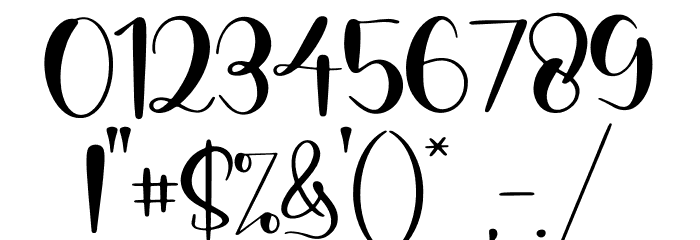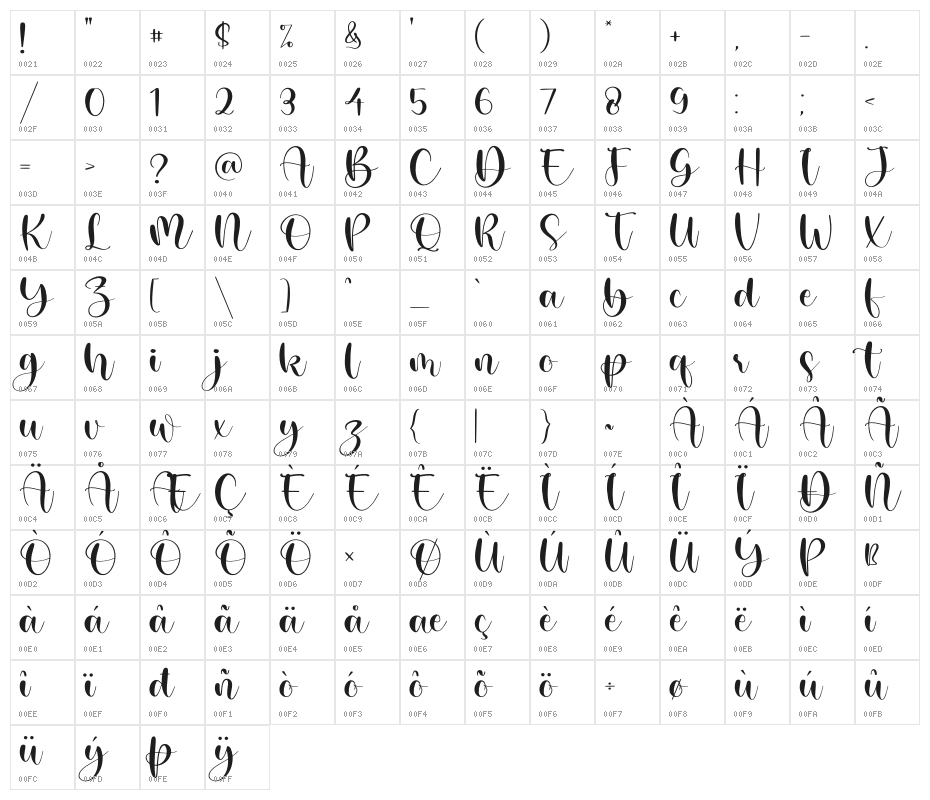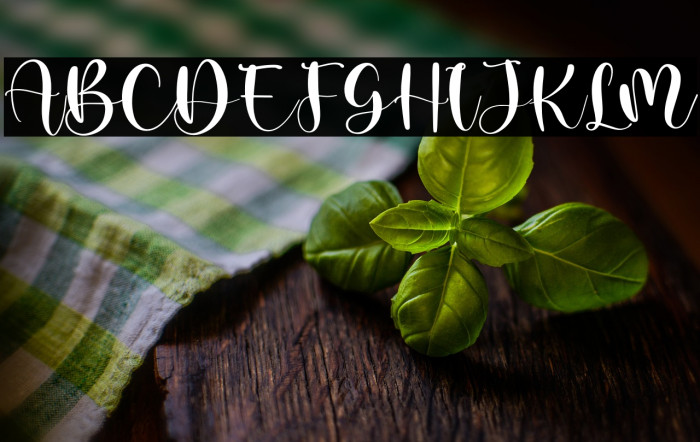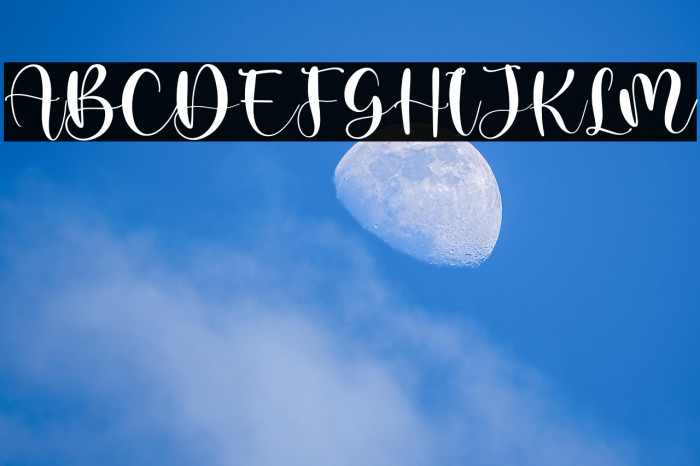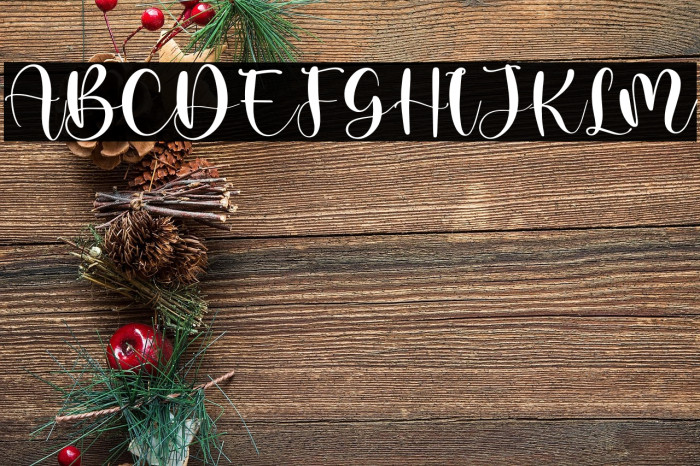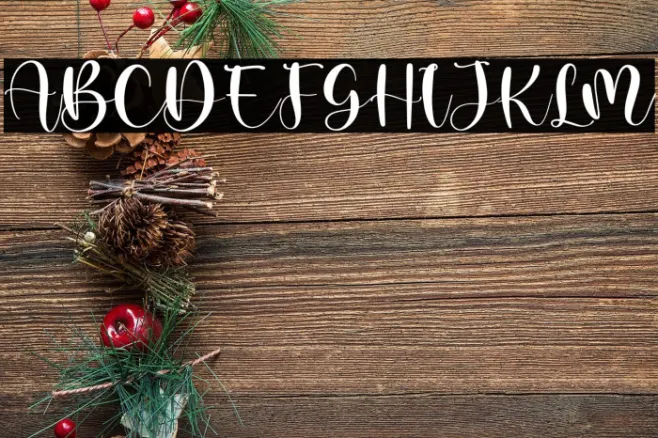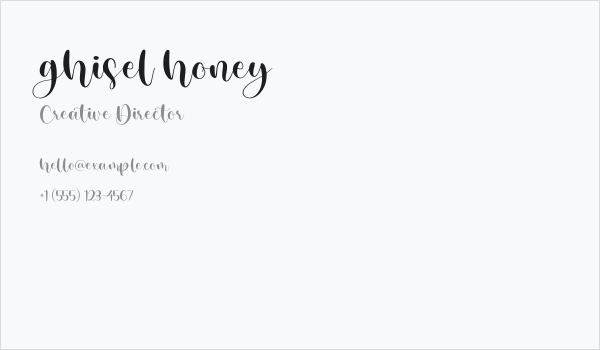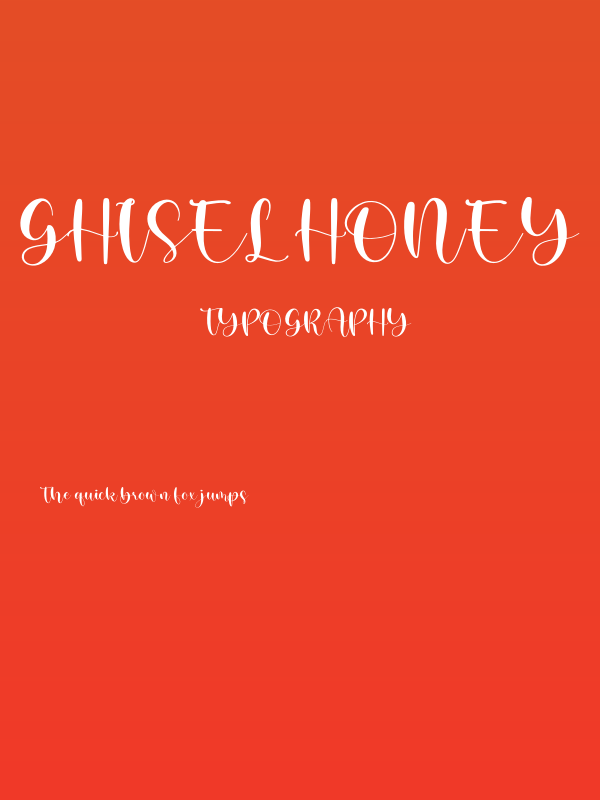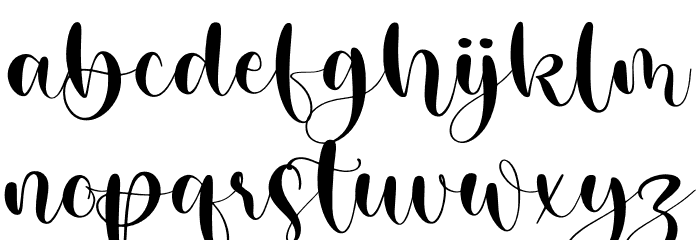
ghisel honey Font
ghisel honey Description
This font features an elegant and flowing script style, characterized by its smooth, cursive letterforms and decorative flourishes. The uppercase letters are particularly ornate, with loops and swirls that add a touch of sophistication. The lowercase letters maintain a consistent flow, enhancing readability while retaining a stylish flair. Numbers and special characters are designed with the same attention to detail, ensuring a cohesive look across all text. The overall appearance is both graceful and dynamic, making it suitable for a variety of creative applications.